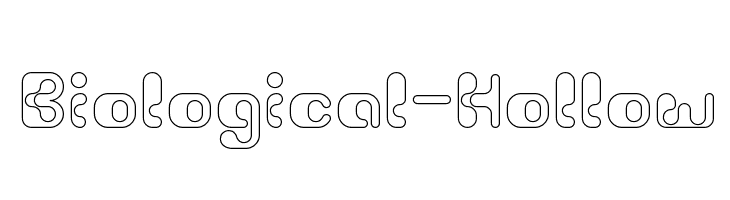
• Biological-Hollow
( weknow - Wino S Kadir - www.creativefabrica.com/designer/weknow/ )
A futuristic, hollow font with rounded edges and a playful, organic style.